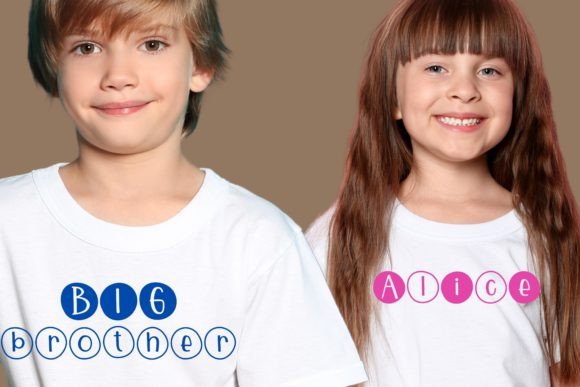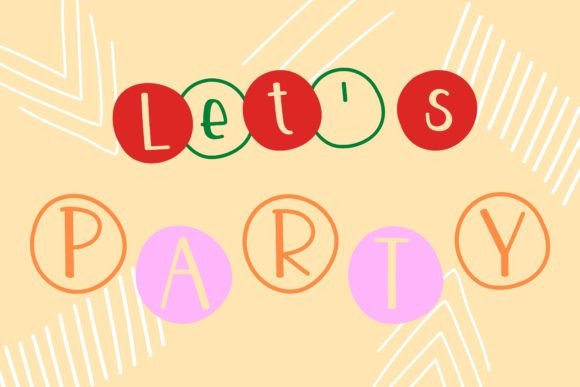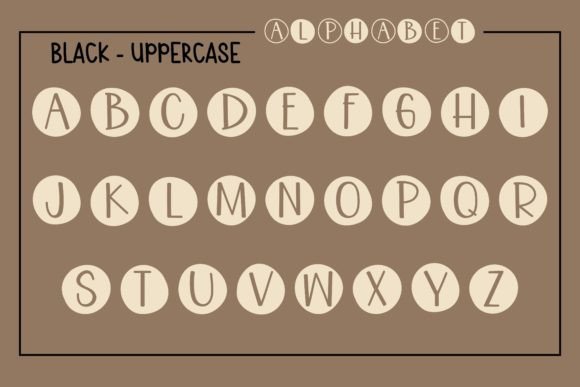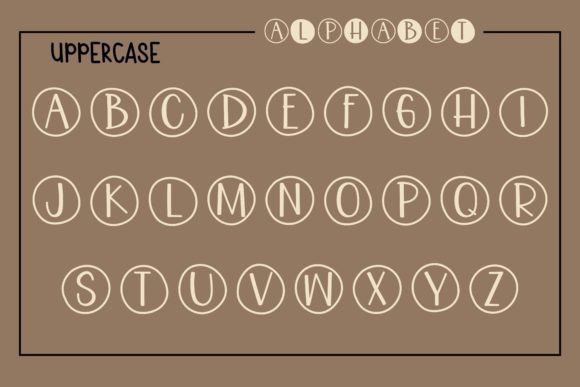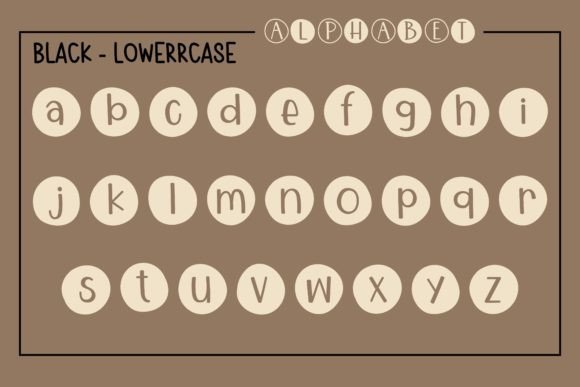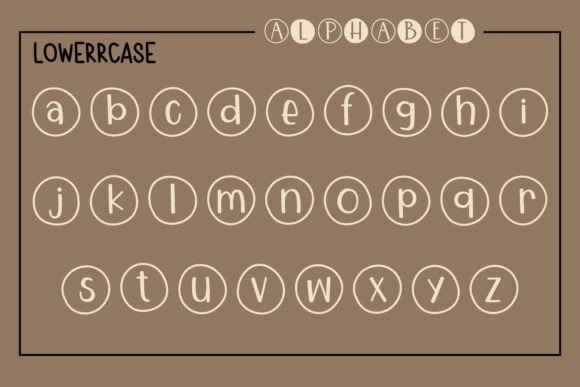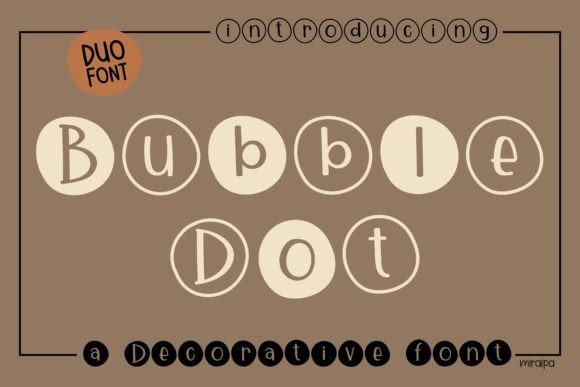
Bubble Dot Font: The Cutest Display Font for All Your Design Needs
Are you tired of using the same old fonts for your designs? Look no further! Bubble Dot Font is here to add a touch of cuteness and adorability to all your projects. This display font is perfect for crafters, digital designers, and anyone looking to add a personal touch to their work. In this article, we’ll dive into the world of Bubble Dot Font and explore its features, uses, and benefits.
What is Bubble Dot Font?
Bubble Dot Font is a unique and playful display font that features bubble-like dots that create a fun and whimsical effect. Its cute and adorable design makes it perfect for a variety of projects, from crafts and digital designs to presentations and greeting cards. The font’s versatility and charm have made it a favorite among designers and crafters alike.
Features of Bubble Dot Font
- Cute and Adorable Design: The font’s bubble-like dots create a fun and playful effect that’s sure to capture attention.
- Versatile: Bubble Dot Font can be used for a wide range of projects, from digital designs to handmade crafts.
- Easy to Read: Despite its playful design, the font is easy to read and understand, making it perfect for titles, headings, and short texts.
- High-Quality: The font is designed with high-quality and clear graphics, ensuring it looks great in any size or resolution.
Uses of Bubble Dot Font
Bubble Dot Font is perfect for a variety of projects, including:
- Crafts: Use the font to add a personal touch to your handmade crafts, such as scrapbooking, card making, and DIY projects.
- Digital Design: Add a playful touch to your digital designs, such as social media graphics, blog posts, and website headers.
- Presentations: Use the font to create engaging and fun presentations for work or school.
- Greeting Cards: Create adorable and personalized greeting cards for special occasions.
Benefits of Using Bubble Dot Font
So, why should you use Bubble Dot Font for your projects? Here are just a few benefits:
- Adds a Personal Touch: The font’s unique design adds a personal touch to your projects, making them stand out from the crowd.
- Increases Engagement: The font’s playful design can help increase engagement and capture attention.
- Versatile: The font can be used for a wide range of projects, making it a great addition to your font library.
Tips for Using Bubble Dot Font
Here are a few tips for getting the most out of Bubble Dot Font:
- Use it for Titles and Headings: The font is perfect for titles and headings, where its playful design can really shine.
- Experiment with Colors: Try pairing the font with different colors to create a unique and eye-catching effect.
- Mix and Match with Other Fonts: Combine Bubble Dot Font with other fonts to create a unique and interesting contrast.
In conclusion, Bubble Dot Font is a cute and adorable display font that’s perfect for crafters, digital designers, and anyone looking to add a personal touch to their work. Its versatile design and ease of use make it a great addition to any font library. Whether you’re creating crafts, digital designs, presentations, or greeting cards, Bubble Dot Font is sure to become your go-to font. So why not give it a try and see the difference it can make in your designs?